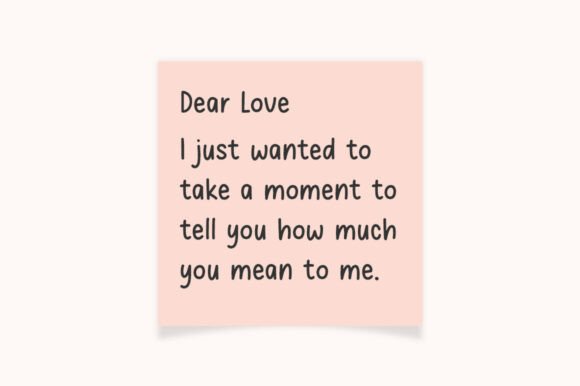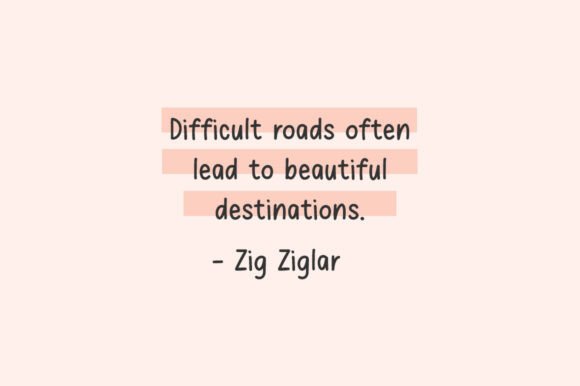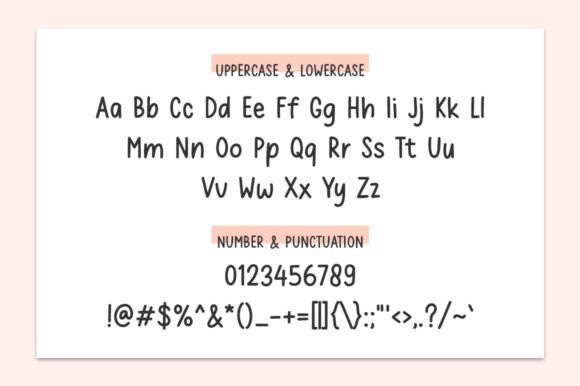
Introduction to Digital Notes Font
Digital Notes is a clean and simple font that adds elegance to your planning.
Perfect for journaling, to-do lists, and daily notes, this font is designed to be easy on the eyes while adding a touch of personality .
Why Choose Digital Notes Font?